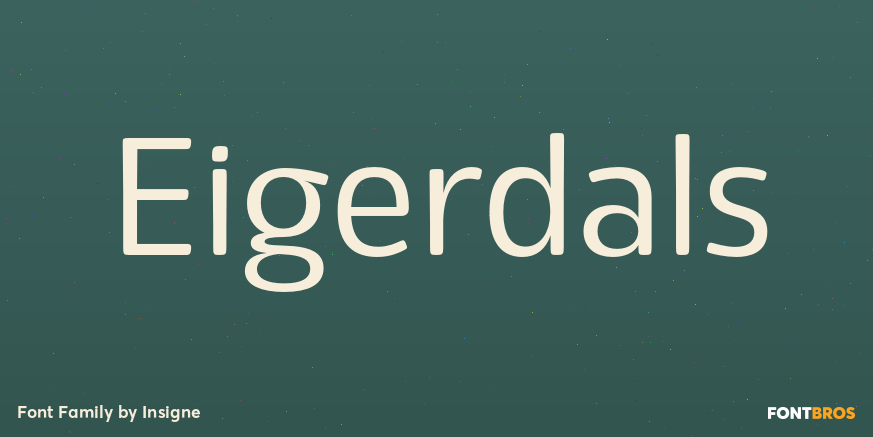
About Eigerdals
Eigerdals is a pleasant and visually warm sans-serif type family. Eigerdahl is a soft and amiable face, perfect for when you want to convey a relaxed and pleasant feeling. Eigerdals features a smooth, brushed impression and a tall x-height. The characters…